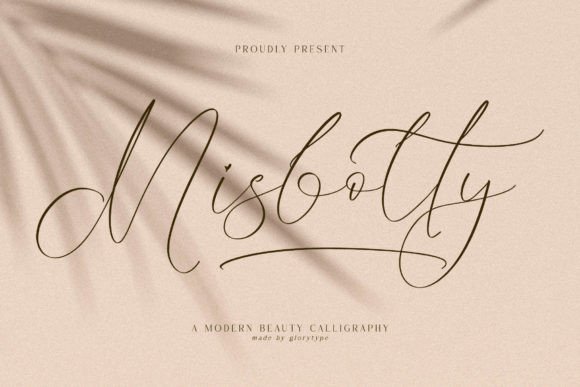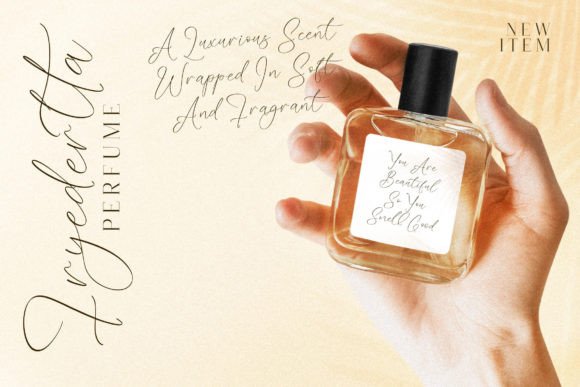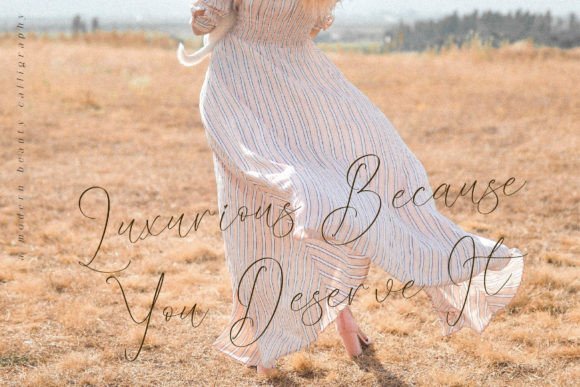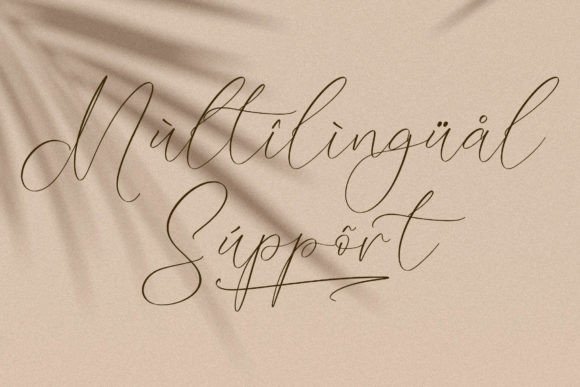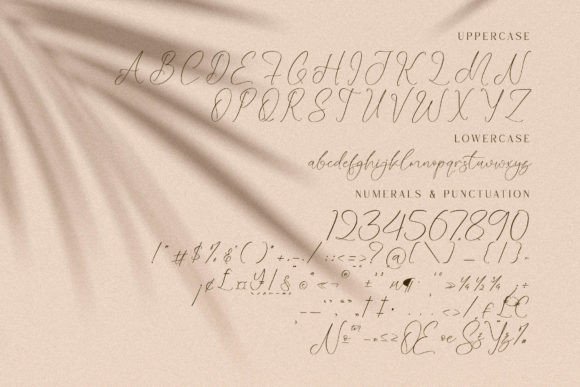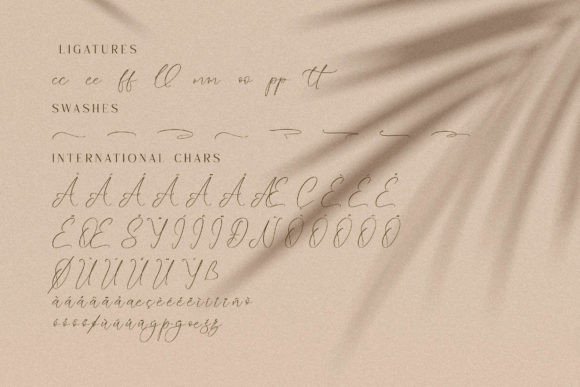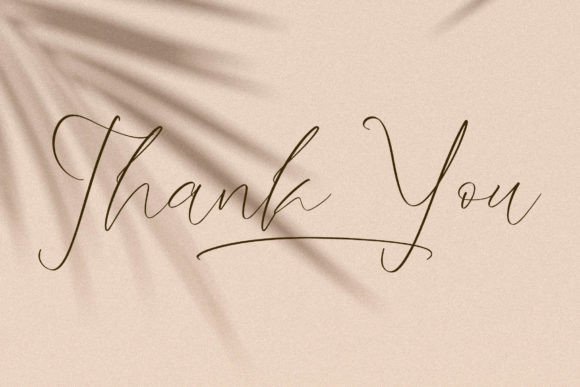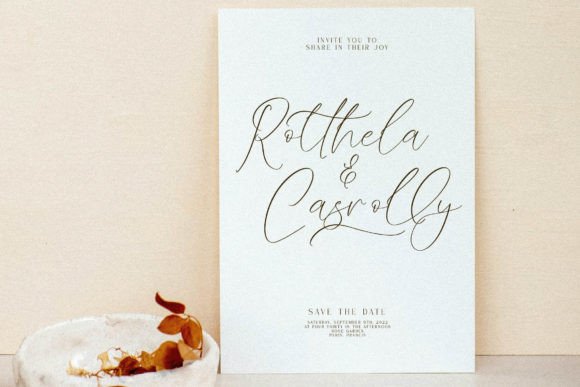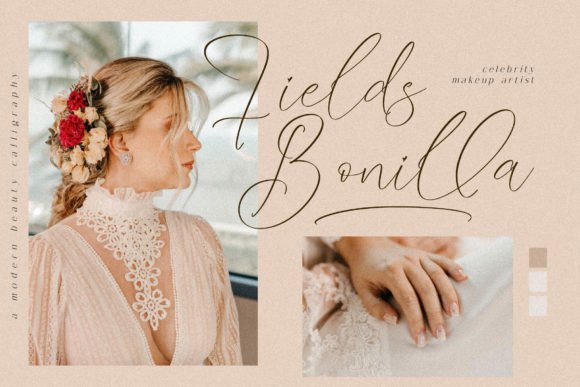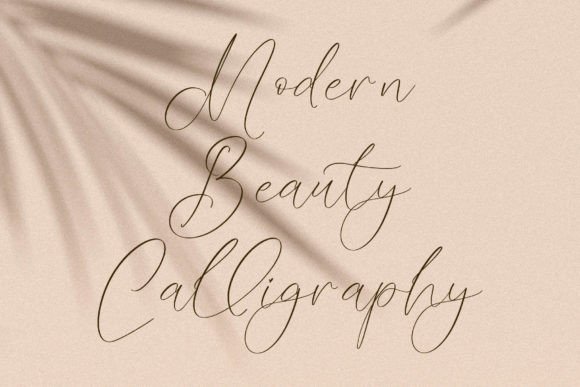
Misbotty
About Misbotty
Misbotty – Modern Beauty Calligraphy , from Glorytype Studio, suitable for any projects such as: logos, branding projects, homeware designs, product packaging, mugs, quotes, posters, shopping bags, t-shirts, book covers, name card, invitation cards, greeting cards, label, photography, watermark, special events, and all your other lovely projects that need a beautiful script taste.